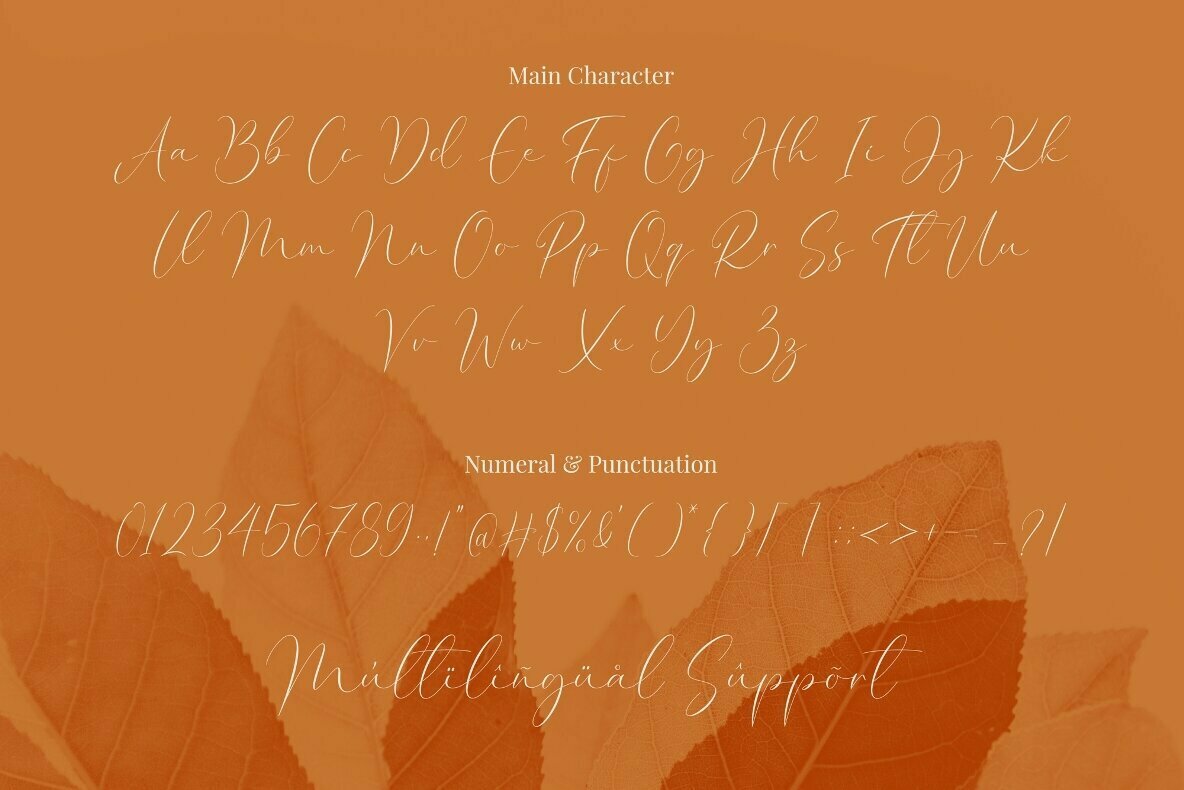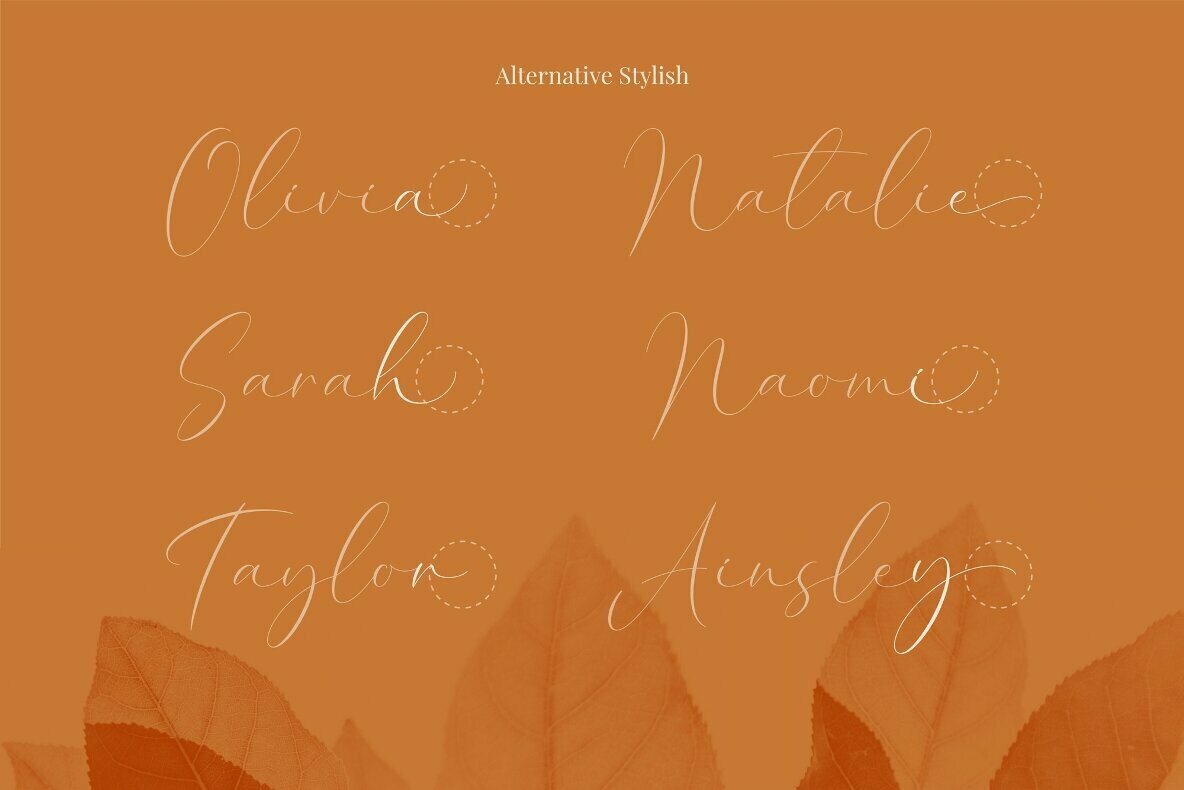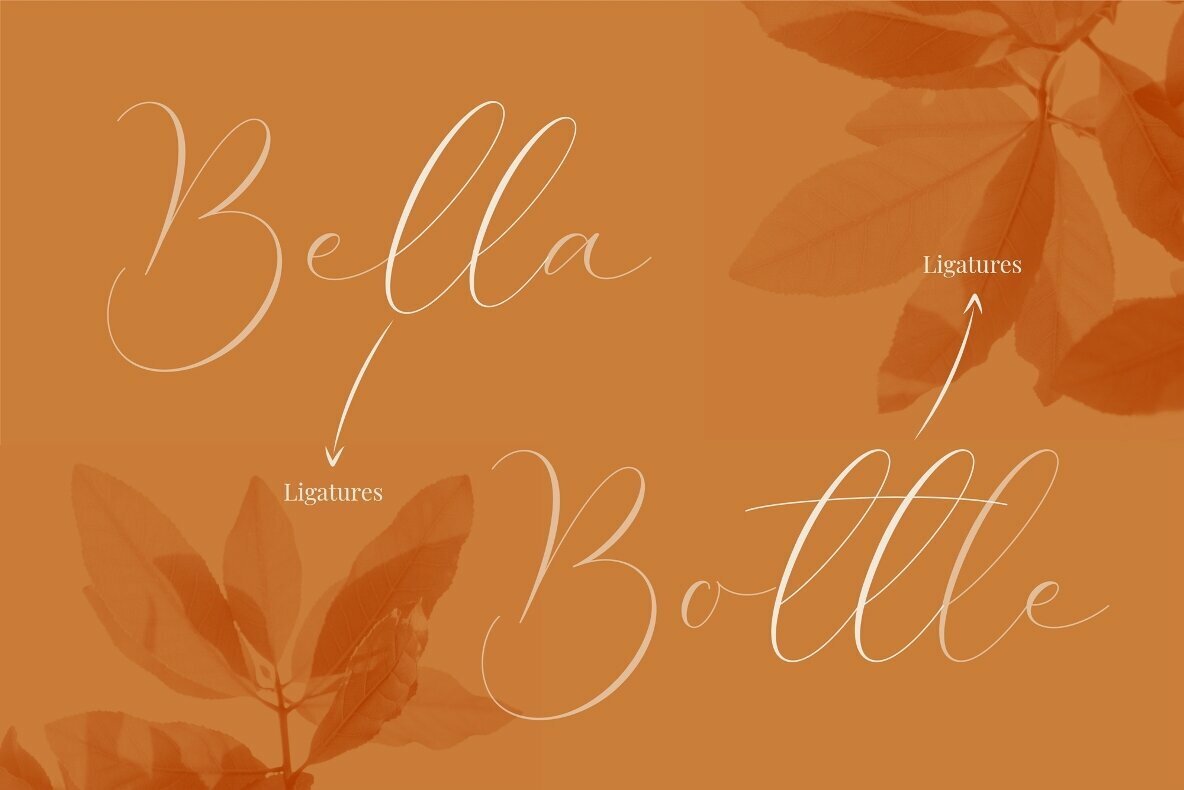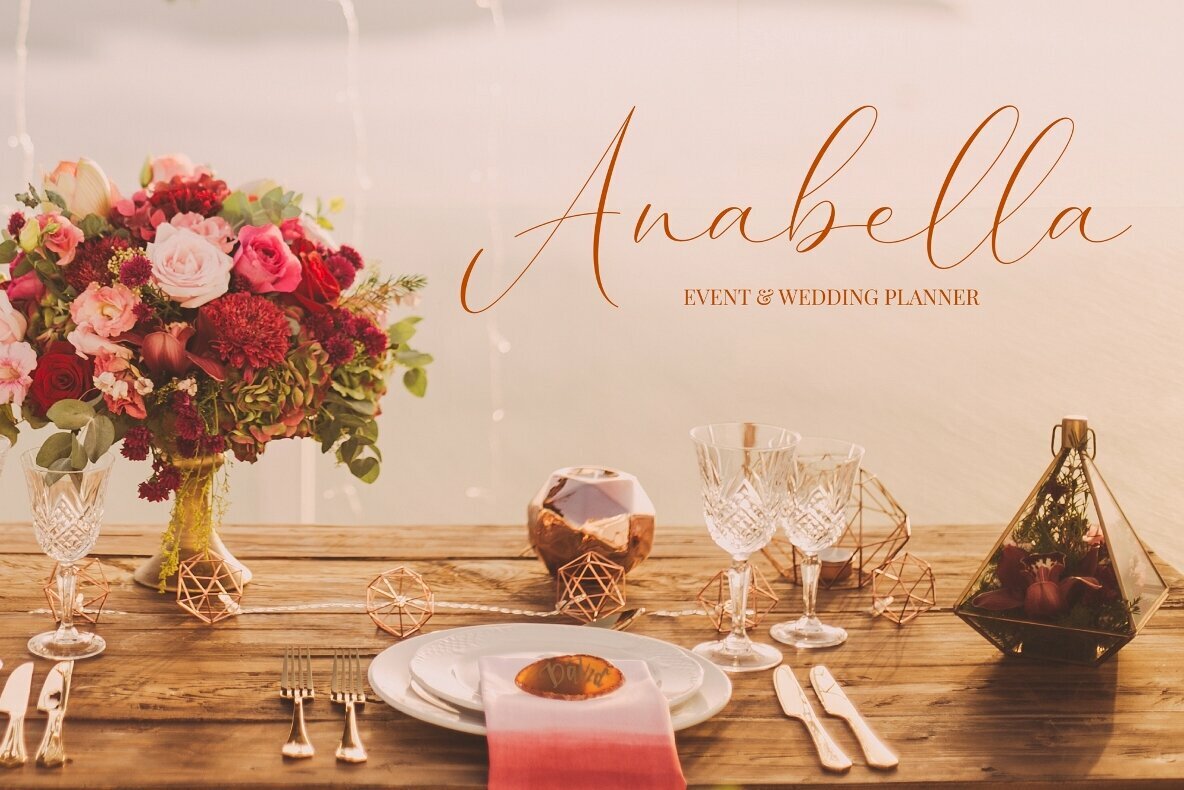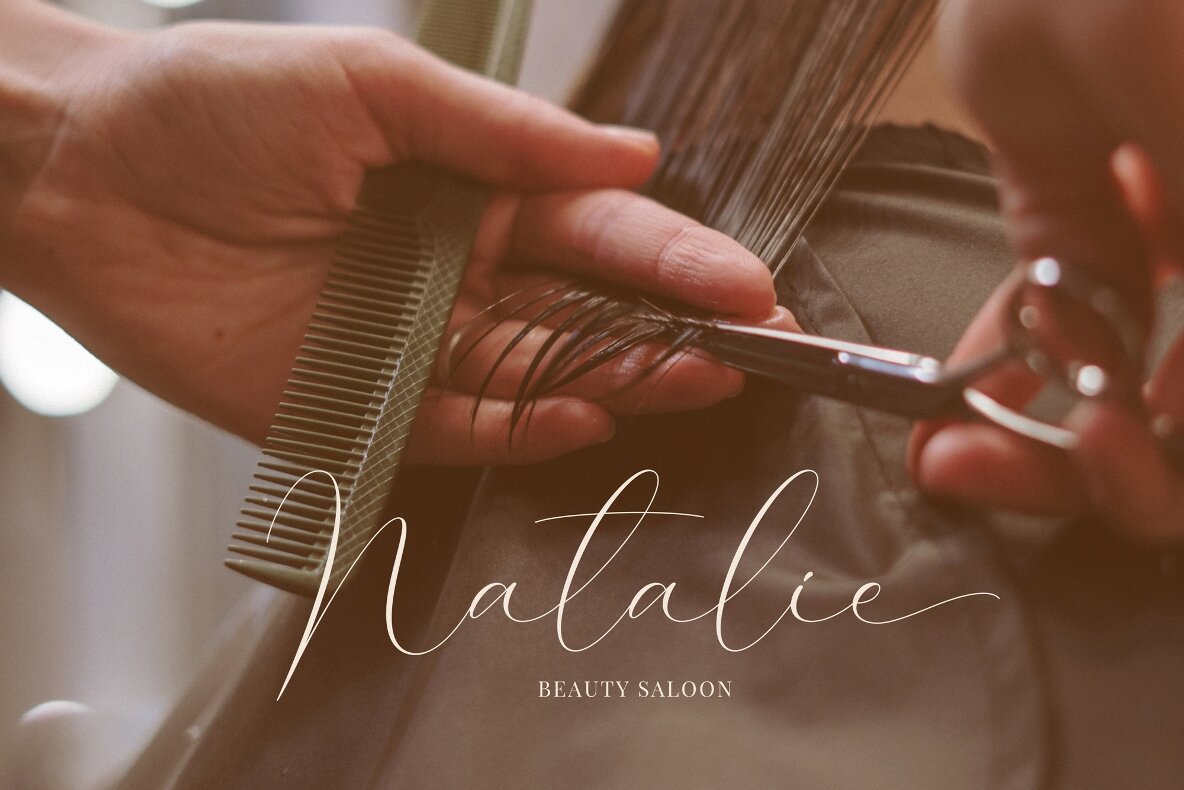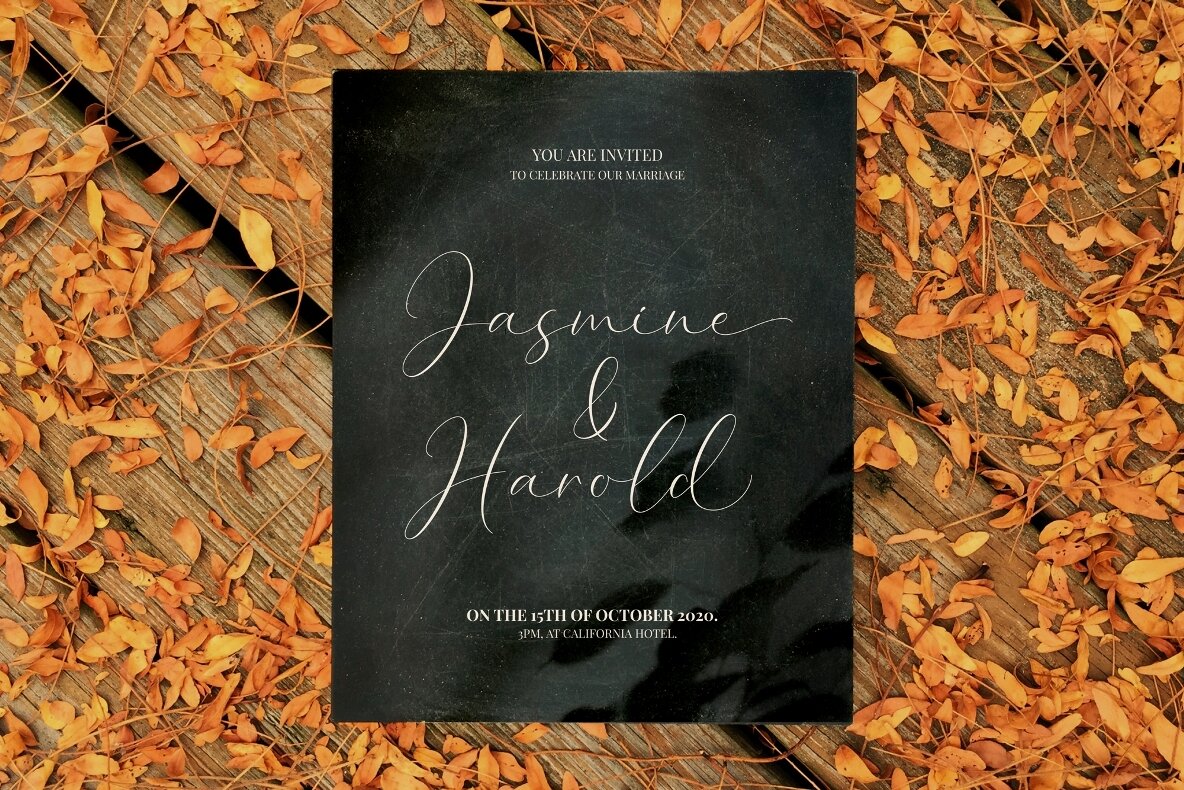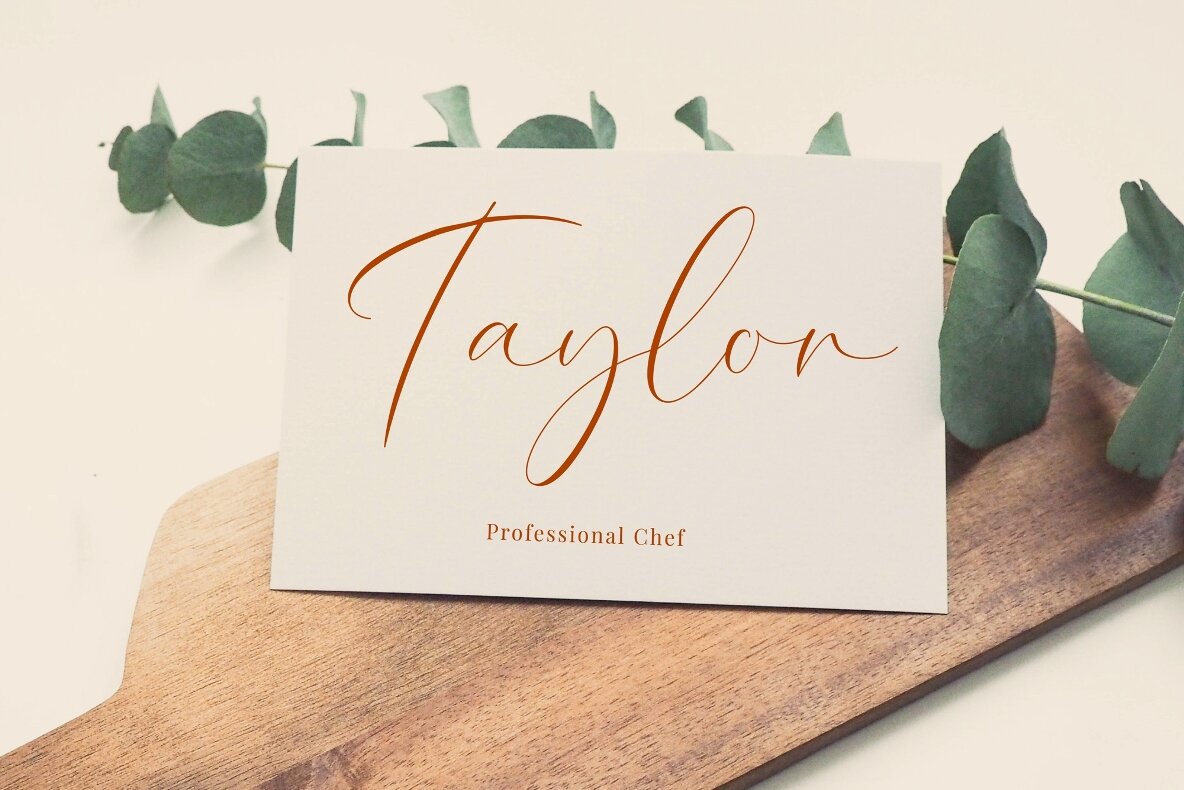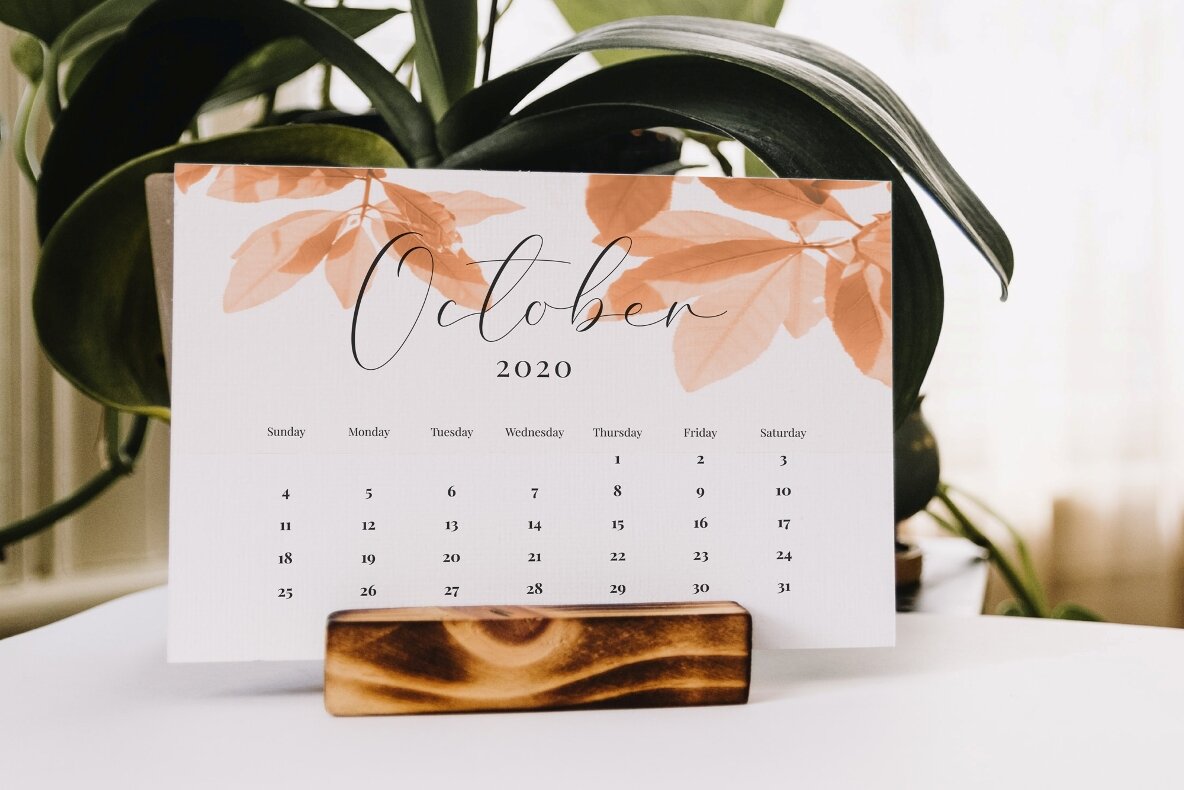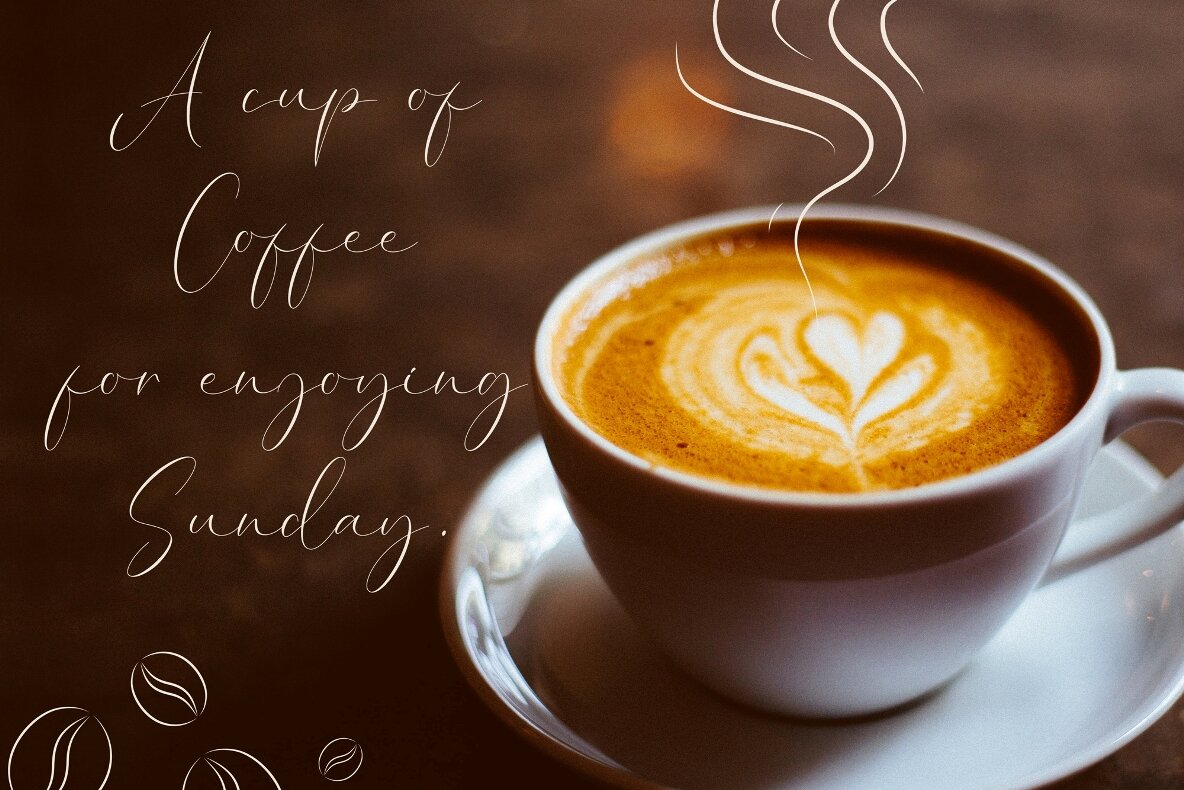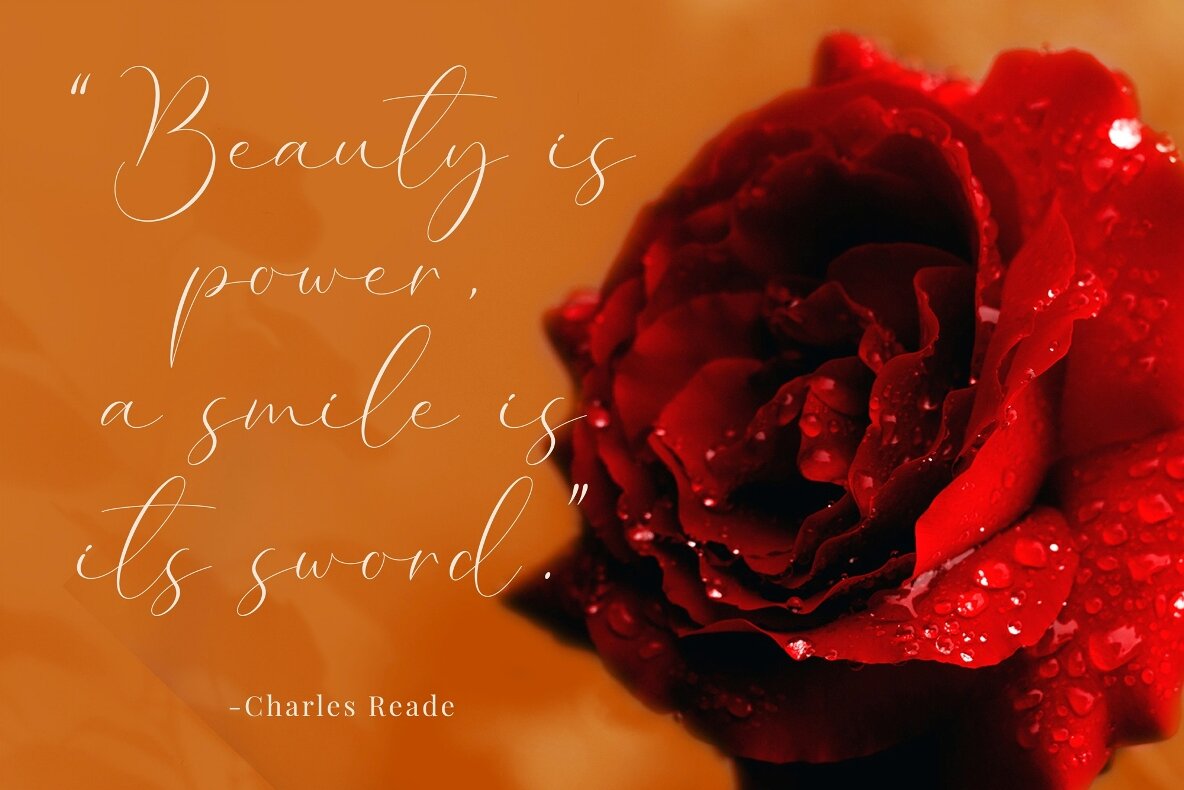
Costa Riyal Font
Costa Riyal
Costa Riyal, designed by Sabrtype Studio, captures the charm of natural handwriting. This versatile font enhances a wide array of projects, seamlessly fitting into designs ranging from logos and branding to invitations and social media graphics. It is an ideal choice for creating compelling advertisements, elegant stationery, and exquisite wedding designs. Its unique features include PUA encoding, granting easy access to an array of alternative glyphs and ligatures that enrich your design with bespoke personality and flair.Costa Riyal: A Handwritten Elegance for Every Design